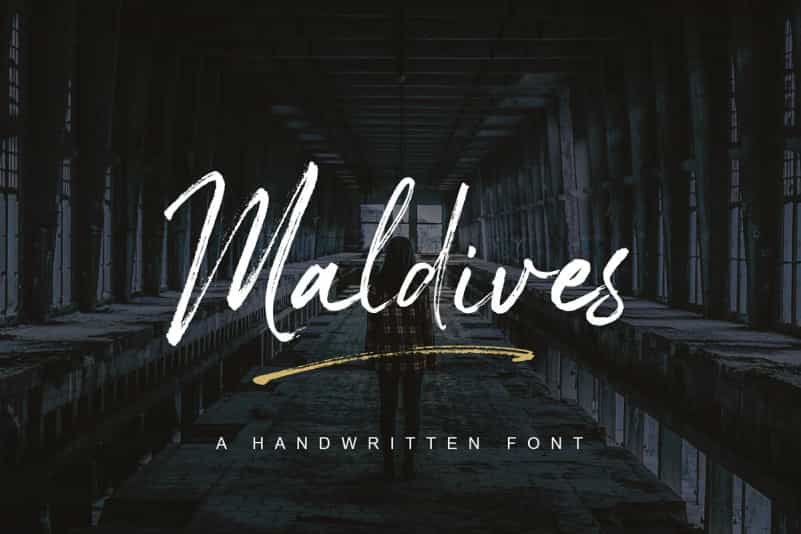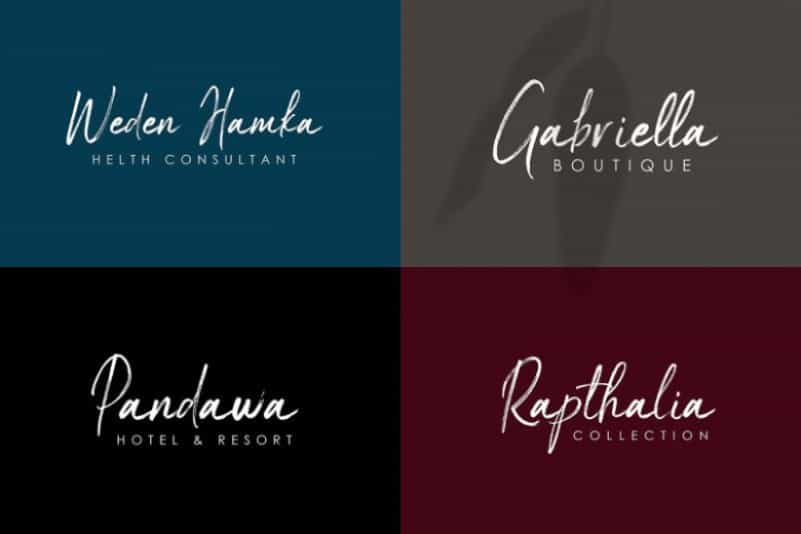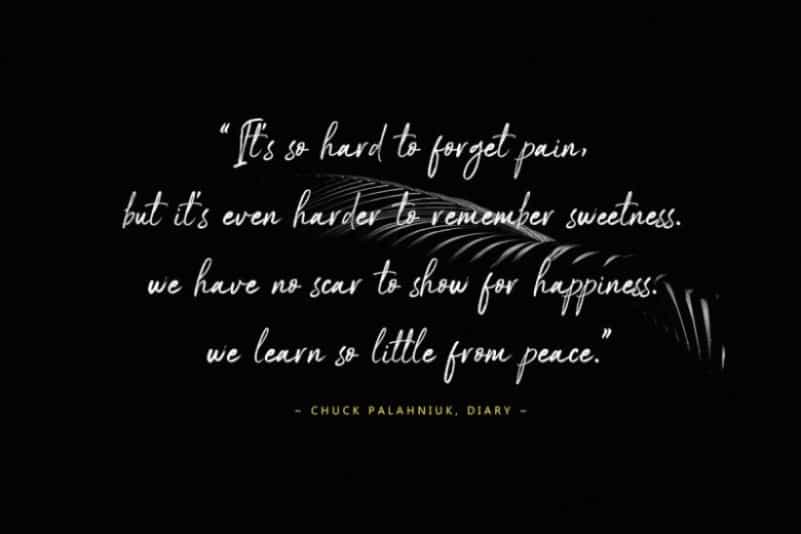
Introducing Maldives Font. It is a handwritten script font, natural, perfect for any use such as apparel, invitation, books title, stationery, quotes, branding, logos, greeting cards, t-shirts, packaging designs, posters, and so on.